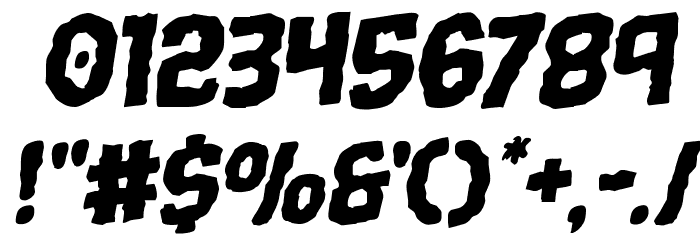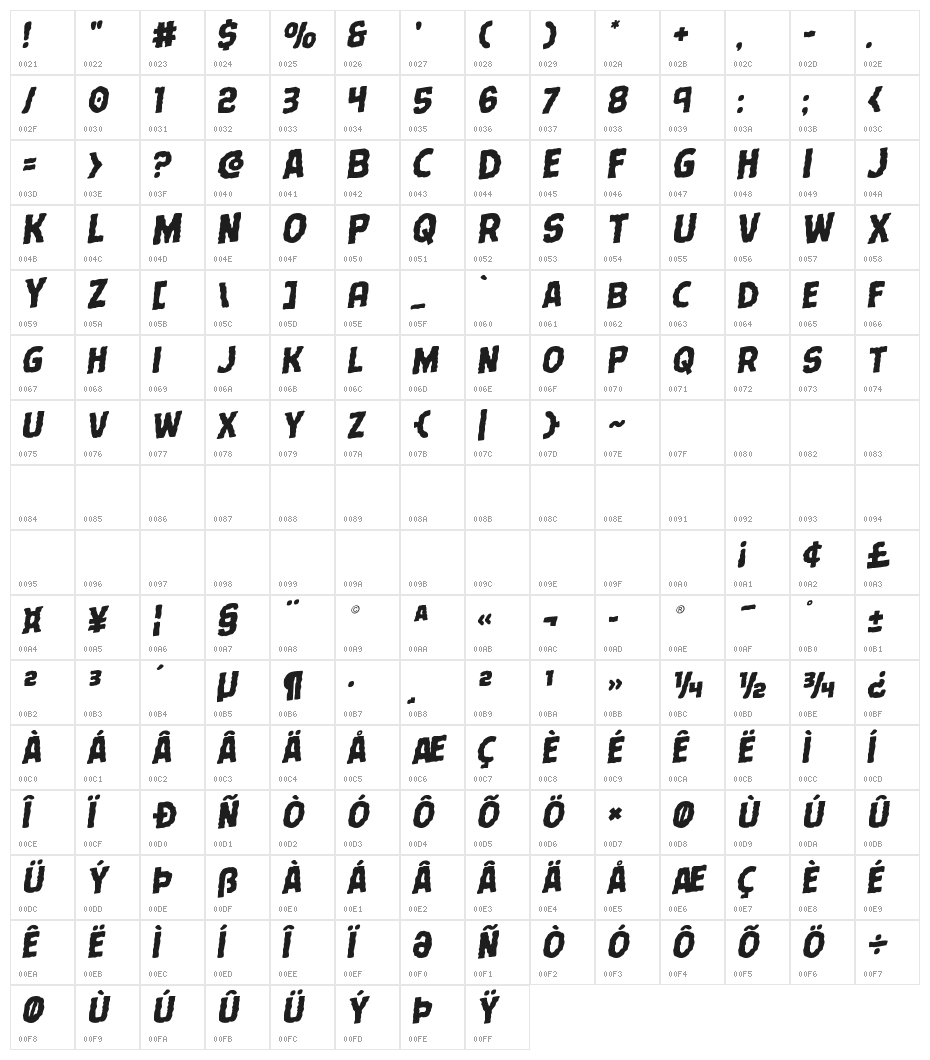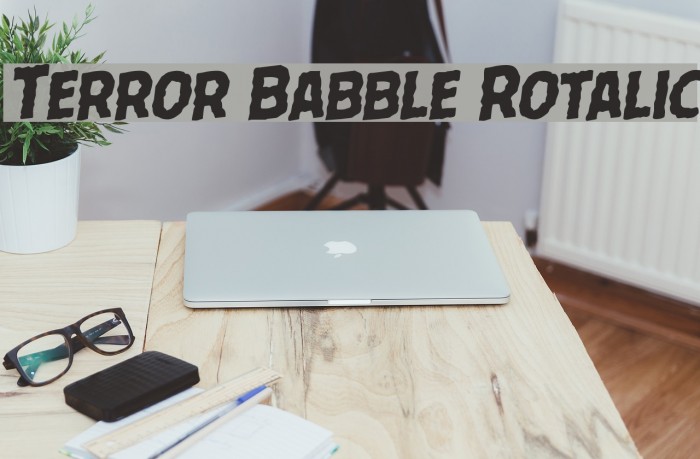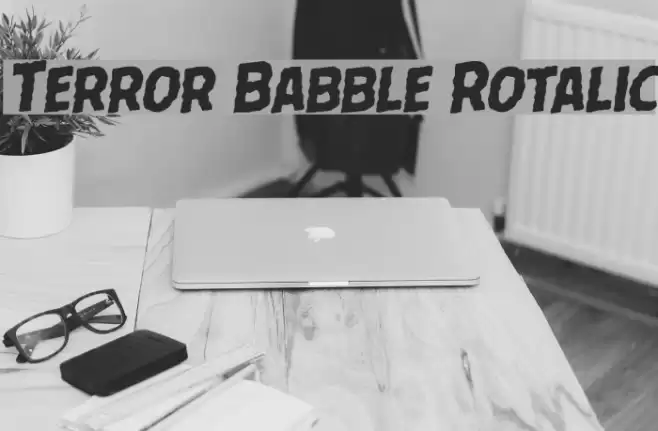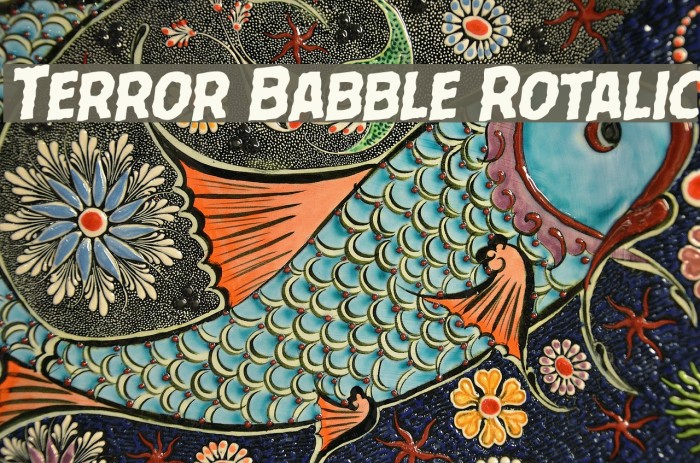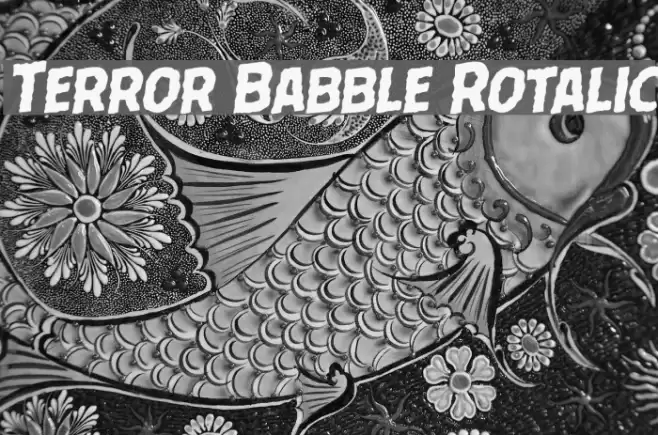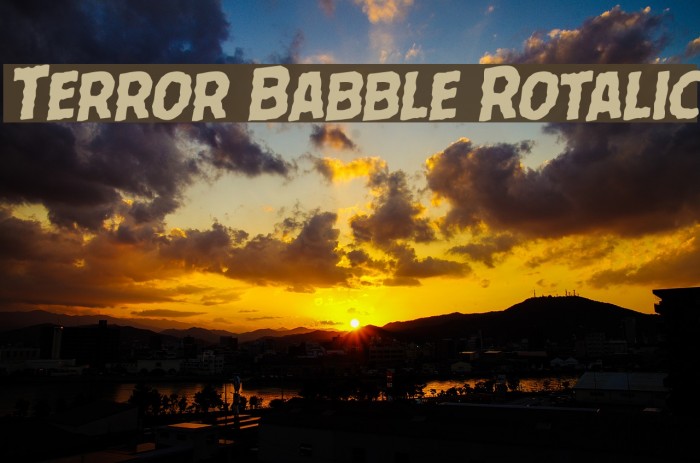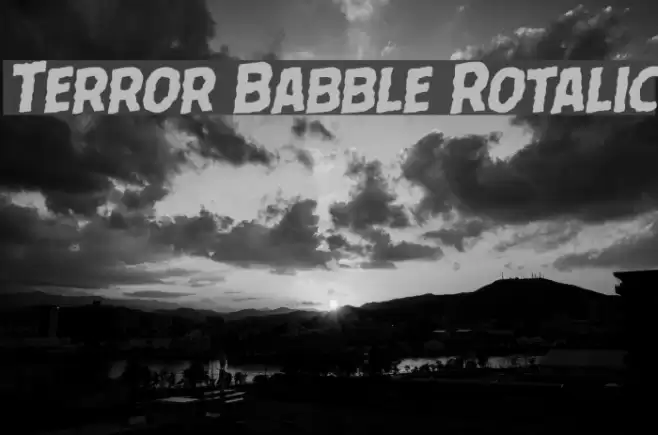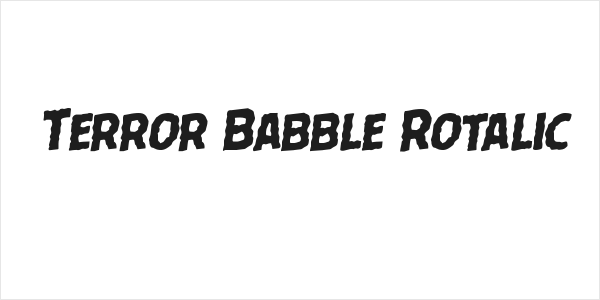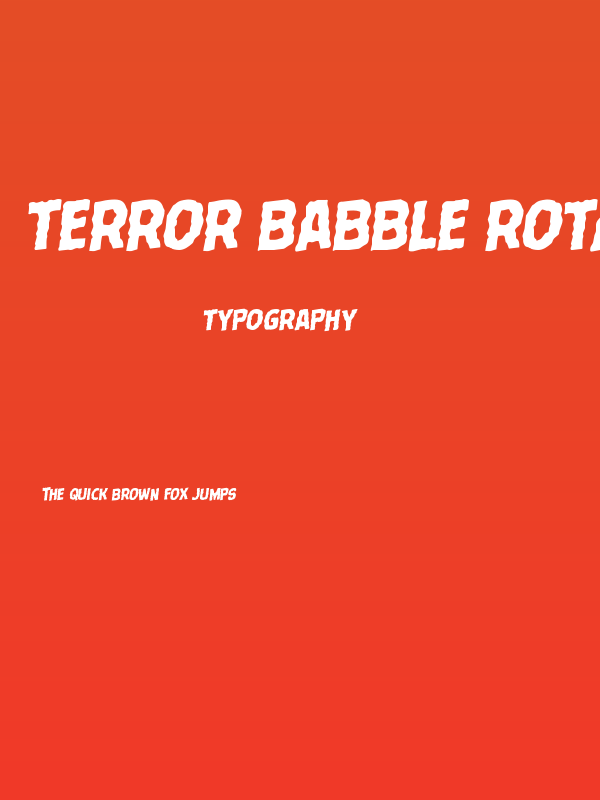
Terror Babble Rotalic Font
Terror Babble Rotalic Description
This font exhibits a bold and dynamic style with a slightly distorted, hand-drawn appearance. The characters are thick and irregular, giving them a playful yet edgy look. The uppercase letters are prominent and maintain a consistent height, while the lowercase letters follow a similar pattern with a slightly smaller size. Numbers and special characters are equally bold, maintaining the overall aesthetic. The font's unique style makes it stand out, suitable for projects that require a strong visual impact.
| Proposed Projects | Ideal for posters, album covers, comic book titles, or any project needing a bold, eye-catching typeface. |